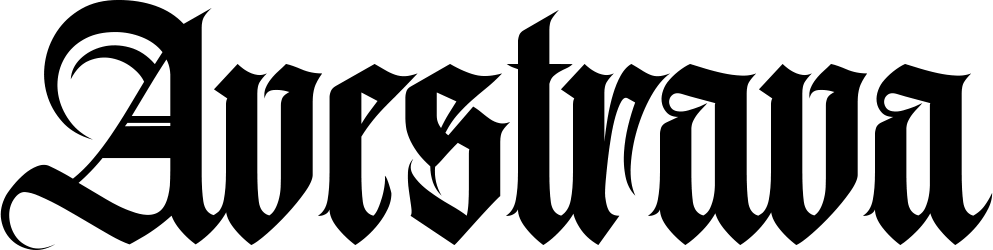
Avestrava Font
Designed byIlhamtaro
Avestrava is a gothic font that is bold, old-school, and medieval. Whenever you want to appear bold and draw attention to your brand you can use Acestrava. It works best in that area!
It comes with both uppercase and lowercase letters, punctuation, and numbers. You can use this biker gothic font in movie and series posters, TV shows, flyers, and so many more areas according to your needs!